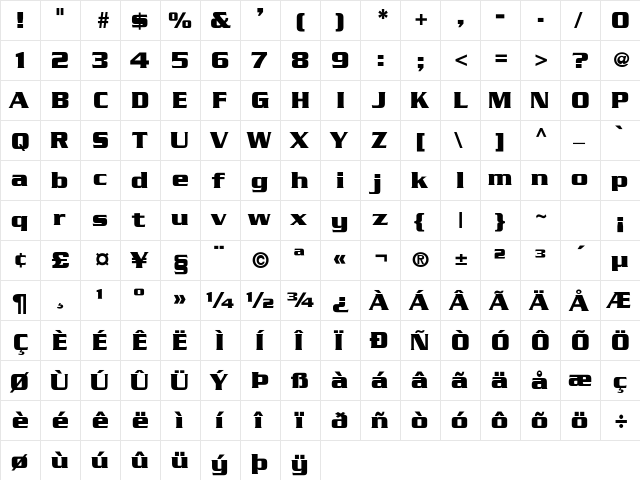
Geodet Display SSi Regular
Design Context for Geodet Display SSi Typeface
Geodet Display SSi brings ornamental detail and strong personality to headlines and identities, where visual impact matters more than quiet functionality.
Font Pairing: Pair with a clean neutral sans-serif for body copy to let Geodet Display SSi's character lead without overwhelming the composition.
Pro Tip: Treat Geodet Display SSi as the centrepiece of your typographic hierarchy. One strong heading set in a decorative face can carry an entire layout.